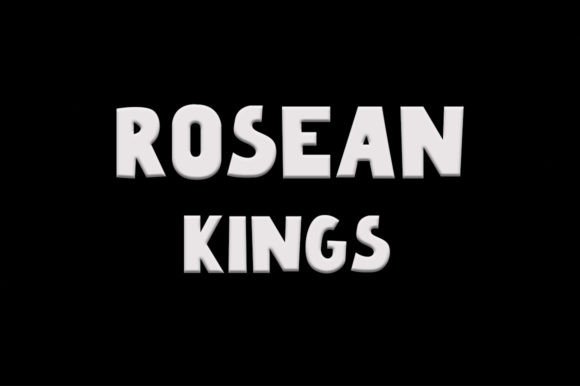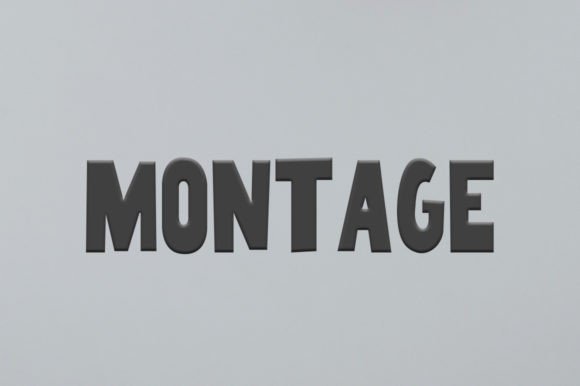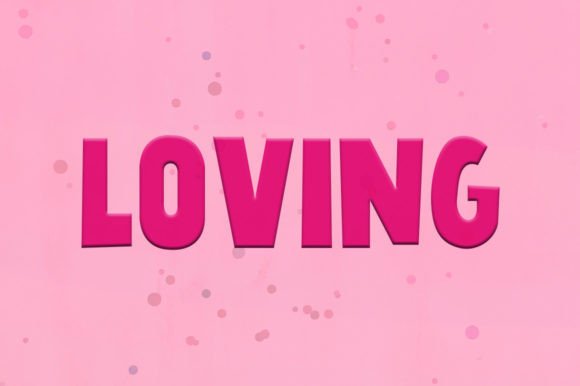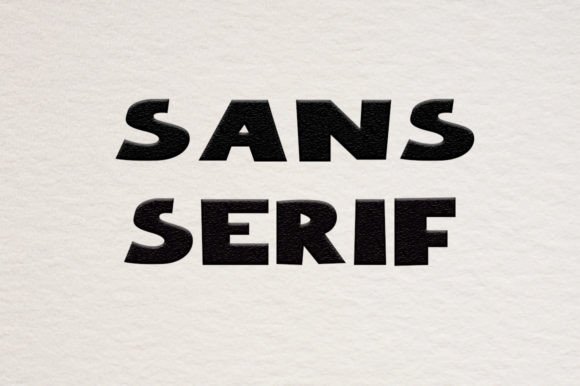
When Design Meets Serenity
Have you ever been stuck in a creative rut, staring at a blank page, desperately searching for the perfect font to bring your design to life? We’ve all been there. But what if we told you that there’s a font that can calm your nerves, spark your imagination, and leave a lasting impression on your audience?
Enter the Calming Font, a sans serif font designed to turn heads and capture attention. This versatile font is perfect for headlines, logos, and any design that demands attention. But what makes it truly valuable for designers is its unique balance of functionality and style, making it a go-to choice for a wide range of design projects. Whether you’re a seasoned pro or just starting out, the Calming Font is sure to be a game-changer.
Calming Font Key Features
- Font Family: Calming Font is a custom-designed font family, including 6 styles: Light, Regular, Medium, Bold, Italic, and Bold Italic.
- Character Count: The font includes over 250 characters, including Latin, Cyrillic, and Greek alphabets, as well as punctuation and symbols.
- Unique Characteristics: Features a unique, hand-crafted design with subtle rounded edges and a calming aesthetic, perfect for creating a soothing and relaxing atmosphere in design projects.
Calming Font Review
As a designer, I was excited to dive into the world of Calming Font, a font designed to promote relaxation and serenity. ✨ One of the things that works well is its soothing aesthetic, which would be perfect for branding a wellness or meditation business. The font’s gentle curves and subtle details create a calming atmosphere that’s hard to ignore. ✨
Another advantage of Calming Font is its versatility. It comes in a range of weights, from light to bold, making it suitable for various design applications. The font also supports multiple languages, which is a bonus for designers who work with clients from diverse backgrounds. ✨
- ⚠️ The font may be too soft and subtle for some design applications, such as headlines or titles. In these cases, it may get lost in the noise.
- ⚠️ The font’s lack of bold, striking features may make it less effective for grabbing attention in busy designs.
- ⚠️ Some users may find the font too similar to other calming fonts on the market, which could make it less distinctive.
Overall, Calming Font is a solid choice for designers looking to create a peaceful and serene atmosphere in their designs. While it may have some limitations, its soothing aesthetic and versatility make it a great addition to any design toolkit.
Calming Font is ideal for:
- Creating soothing and relaxing designs
- Designing wellness and self-care content
- Creating calming and peaceful presentations
For optimal results, use Calming Font in combination with soft colors and gentle textures.